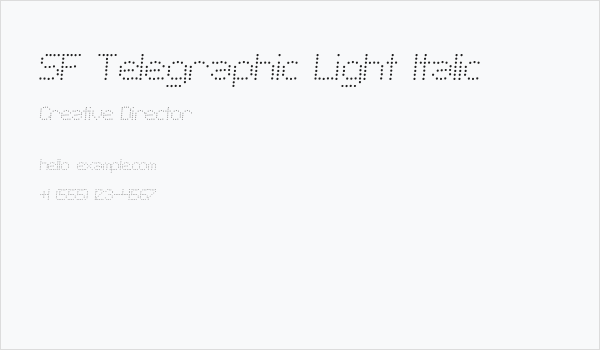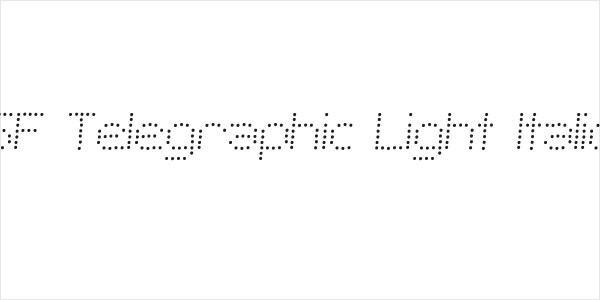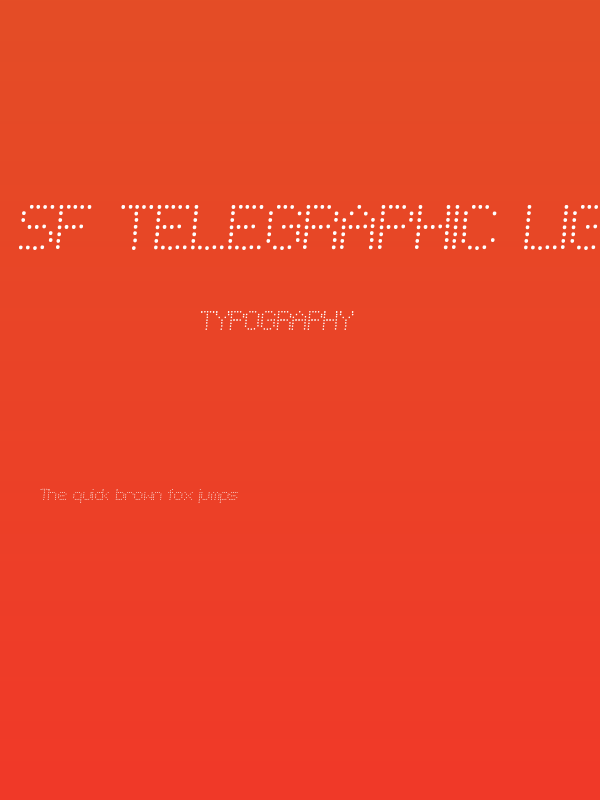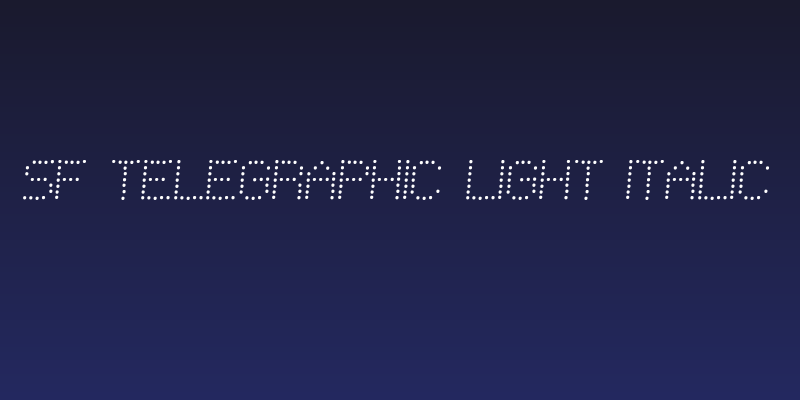
SF Telegraphic Light Italic Font
SF Telegraphic Light Italic Description
This font features a unique dotted design, where each character is composed of a series of evenly spaced dots. The style is reminiscent of old telegraph or digital display fonts, giving it a distinct, retro-futuristic feel. The characters are slightly slanted, indicating an italic style, and the overall appearance is light and airy due to the minimalistic dot pattern. The font maintains a consistent structure across both uppercase and lowercase letters, as well as numbers and special characters, ensuring readability despite its unconventional form.
| Overall Style | Retro-Futuristic |
| Use Case | Logos, Digital displays, Posters |
| Proposed Projects | Ideal for digital displays, retro-themed designs, or projects requiring a unique, eye-catching typeface. |